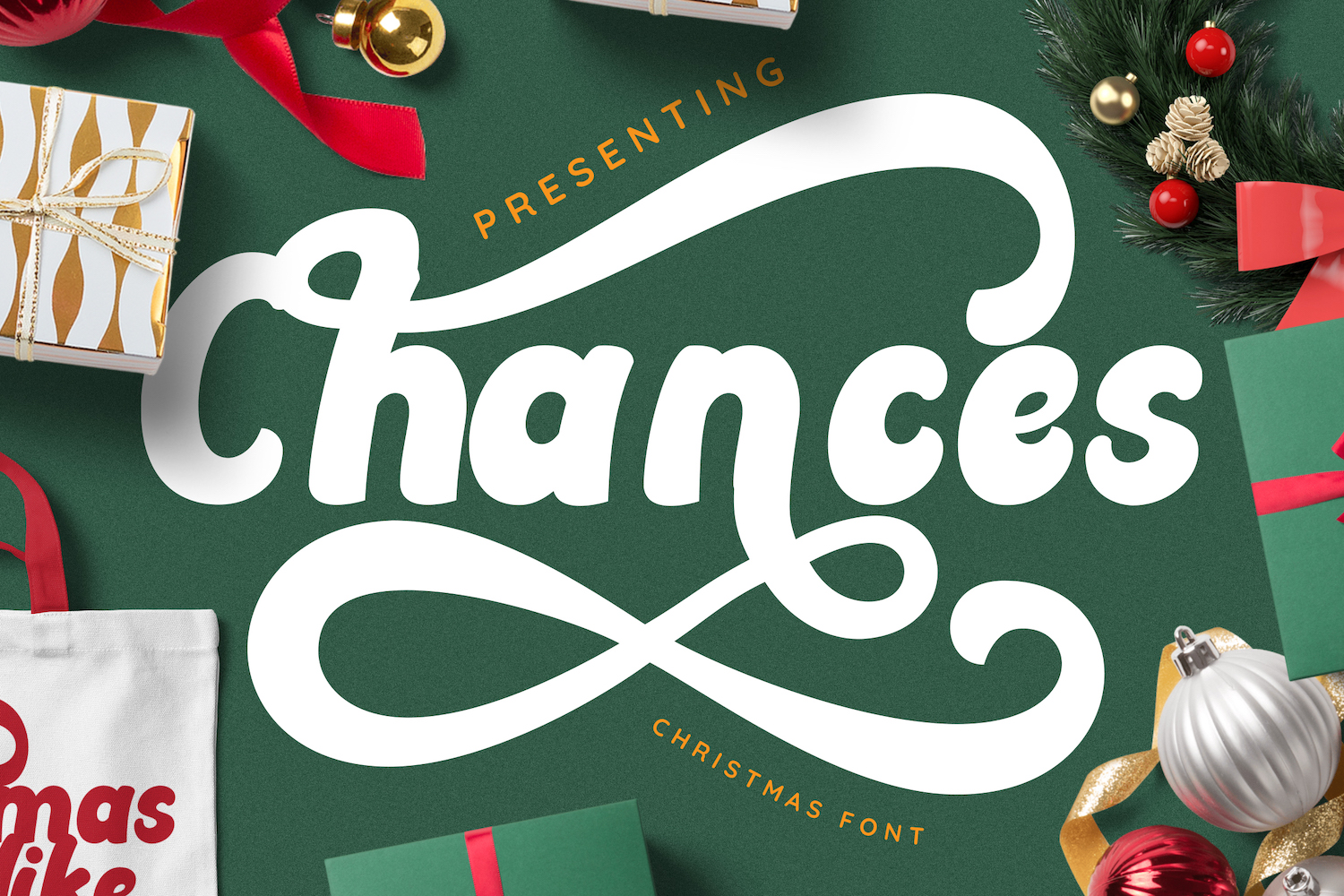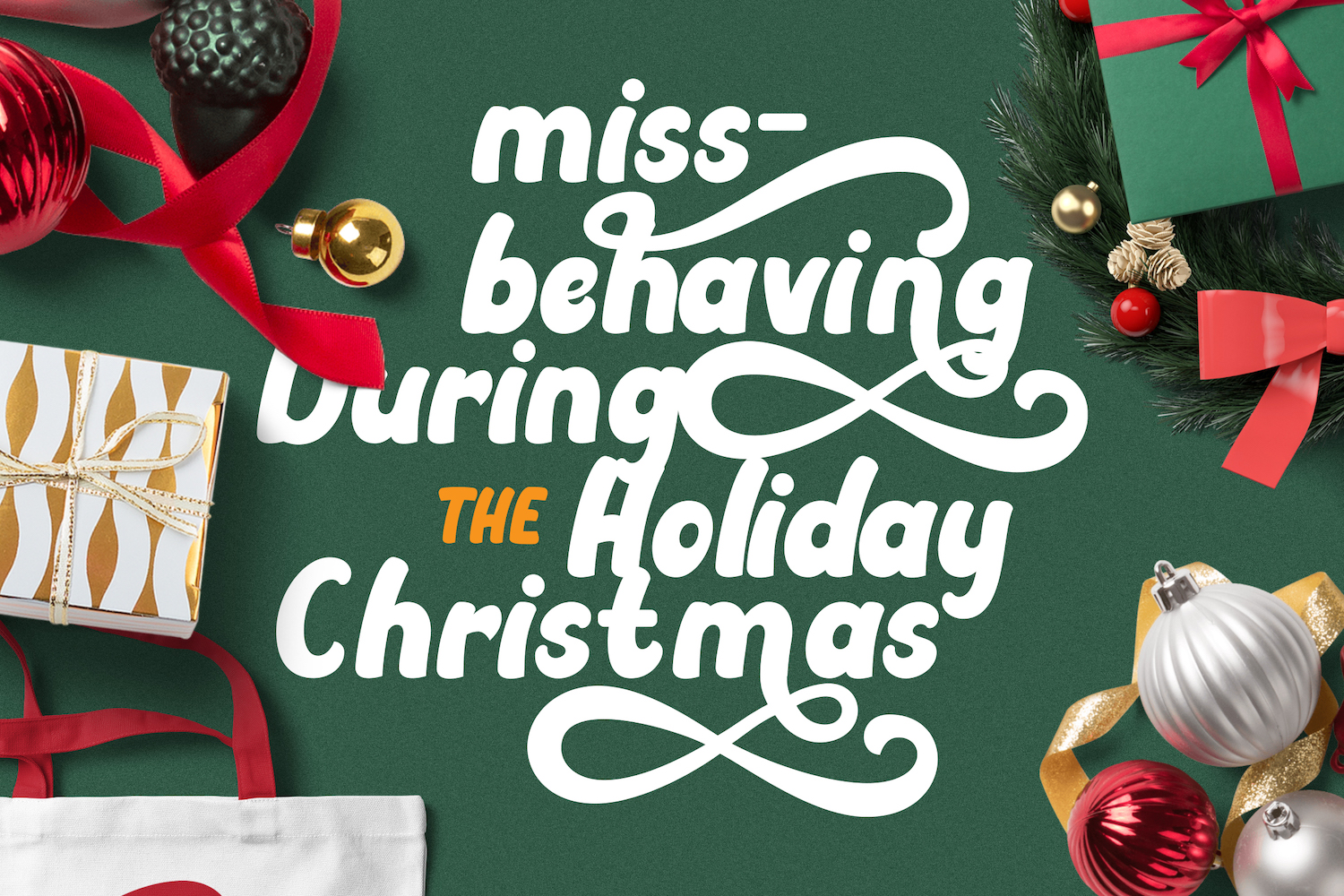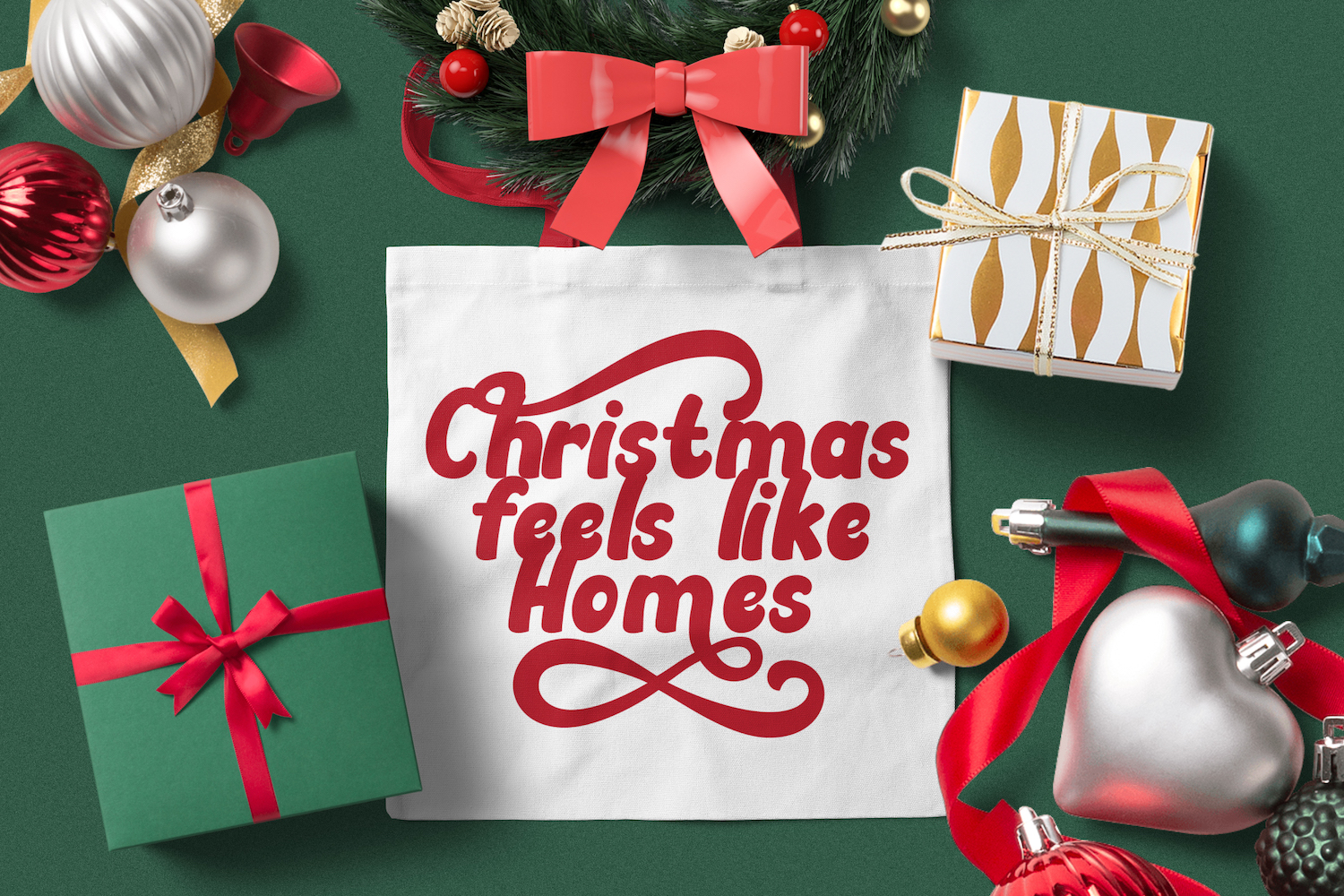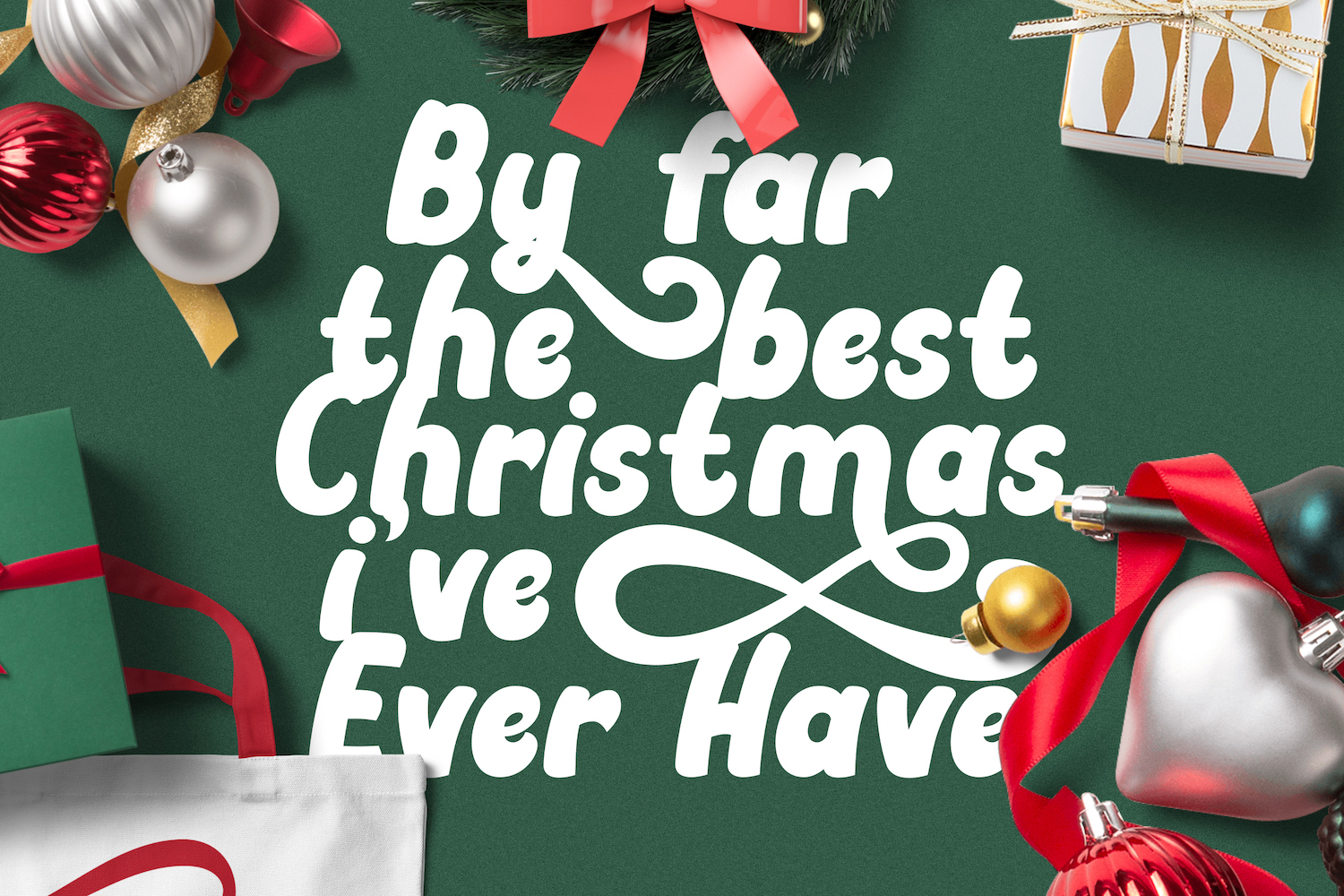
Chances is a cheerful and whimsical Christmas-themed font that captures the joy of the holiday season. Its bold, rounded letterforms are infused with playful swashes and flourishes, creating a lively and festive personality. Designed to stand out in gift packaging, greeting cards, or Christmas apparel, this font instantly evokes feelings of warmth, joy, and celebration.
With full uppercase and lowercase support, as well as multilingual characters and festive punctuation, Chances is highly versatile for holiday-themed designs. Whether you’re crafting Christmas quotes, branding holiday merchandise, or decorating seasonal products, this font brings a sense of magic and charm to every project.
Chances